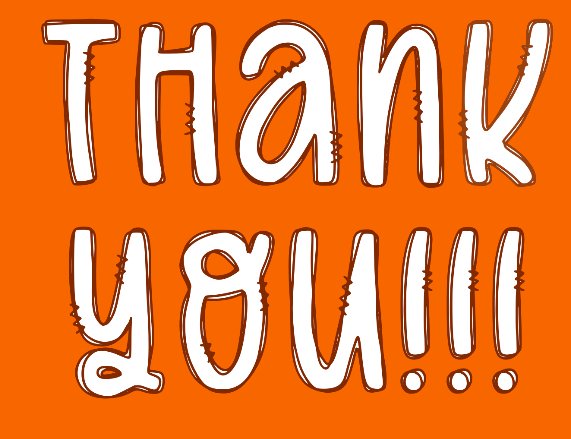
Outlined AF: A Quirky All Caps Font for Procreate
This quirky outlined font is hand-drawn and can be used to add a playful feel to a variety of projects. It has open areas you can color in, add patterns, or leave it empty.
It includes the full alphabet (72 letters, each letter in two different styles), numbers, punctuation, and glyphs.